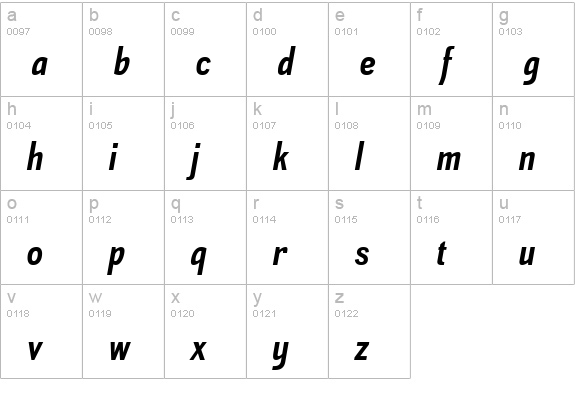
Akazan Bold Italic Font Details
Akazan Bold Italic is a strong, high-contrast, italic variant in the Akazan typeface family \xE2\x80\x94 well suited to headlines, attention-grabbing titles, and strong calls-to-action.
Akazan Bold Italic font is a stunning and versatile typeface that exudes strength and elegance. With its bold and italic design, this font is perfect for making a bold statement in any project. The sleek lines and unique curves of Akazan Bold Italic make it a standout choice for headlines, logos, and branding materials. What makes Akazan Bold Italic even more appealing is that it is available for free download at FontsMarket.com. This means you can easily access this high-quality font without any cost, making it a valuable addition to your font library. Whether you are a graphic designer, web developer, or content creator, Akazan Bold Italic is sure to enhance your projects with its modern and sophisticated appeal. Don't miss out on the opportunity to elevate your designs with the striking Akazan Bold Italic font. Download it for free today and unleash its creative potential in your next project!